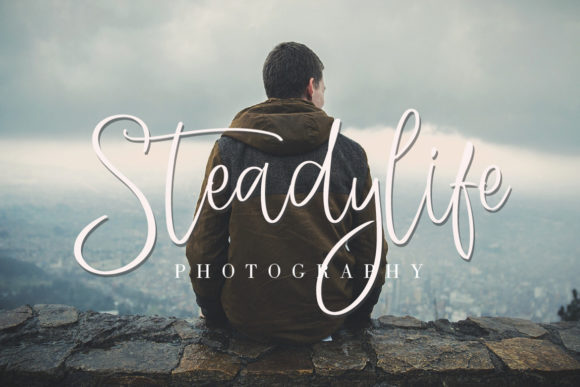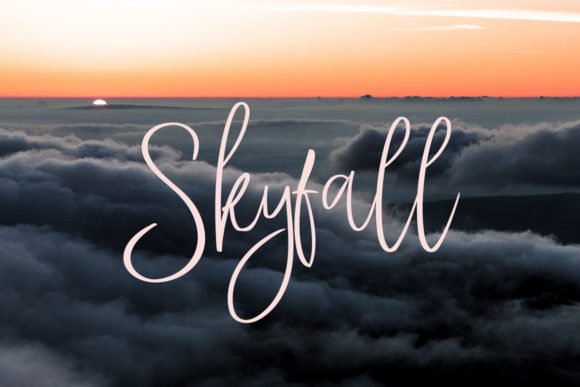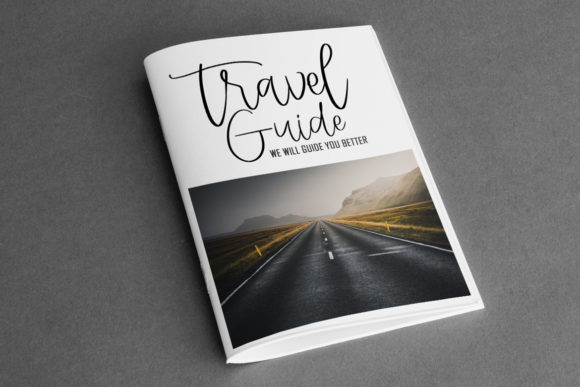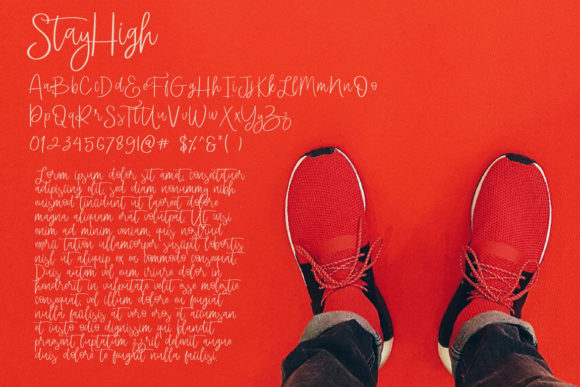
Stay High Font
About Stay High Font
Stay High is a light and authentic handwritten font with a lovely vibe. It will add a sophisticated twist to any creative project!